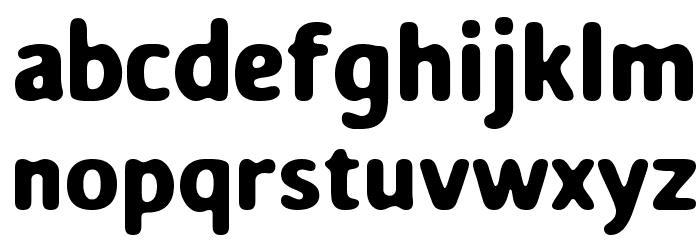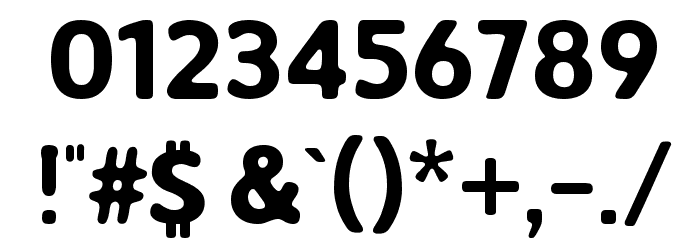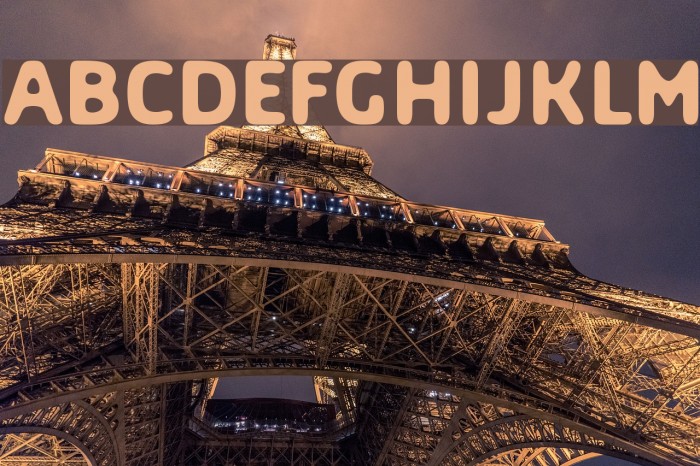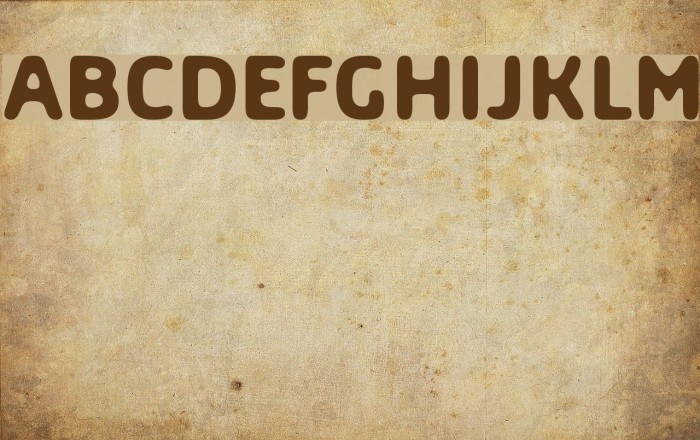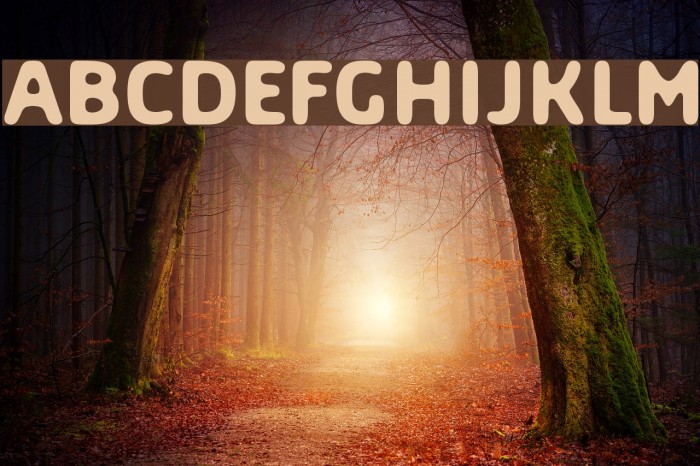
Soft Core Font
This font features a bold and rounded style, characterized by its smooth, soft edges and uniform stroke width. The letters are evenly spaced, creating a harmonious and approachable appearance. The uppercase and lowercase letters maintain a consistent design, enhancing readability and visual appeal. The numerals and special characters follow the same rounded aesthetic, making them easily distinguishable and cohesive with the rest of the font. This style is particularly suited for projects that require a friendly and modern look.
A bold, rounded font with smooth edges and uniform stroke width.
- Proposed Projects: Ideal for branding, children's books, casual invitations, and playful graphic design projects.